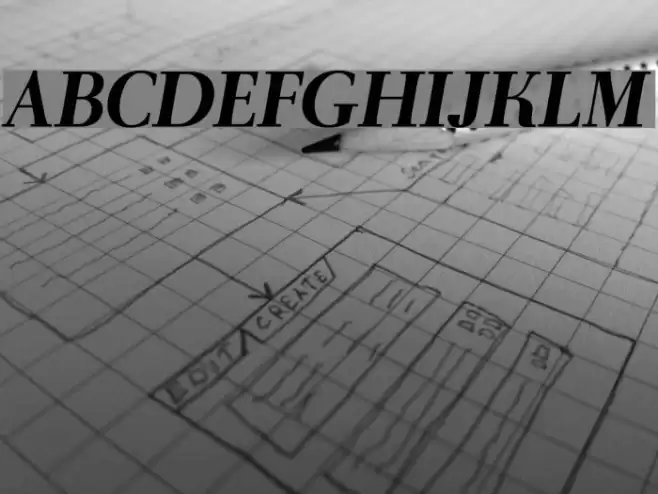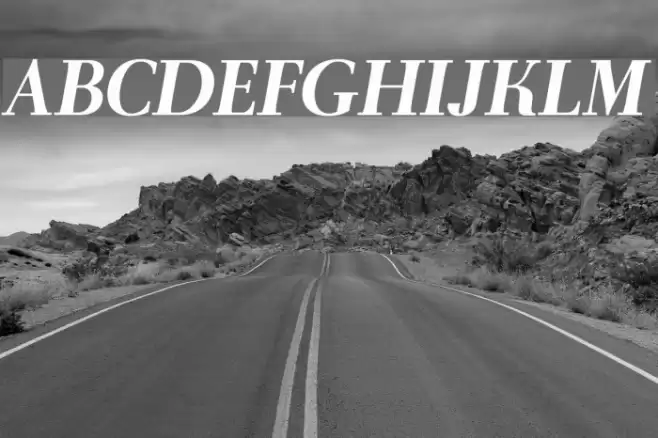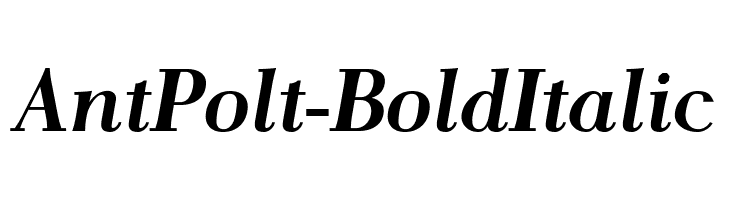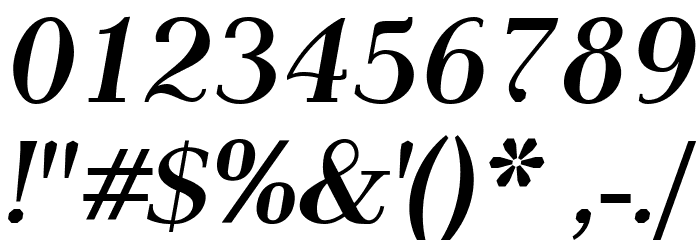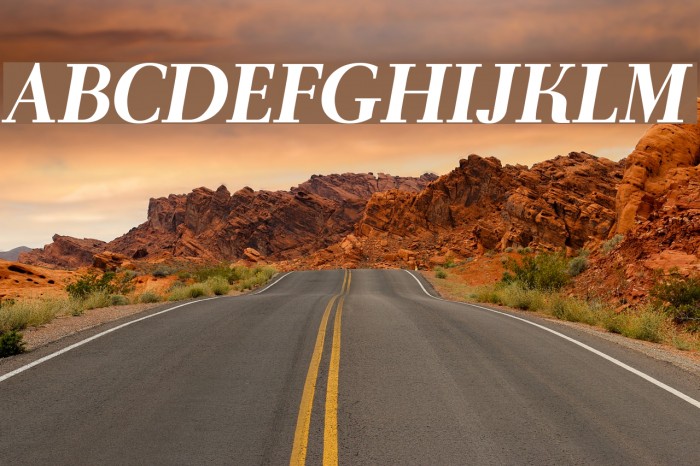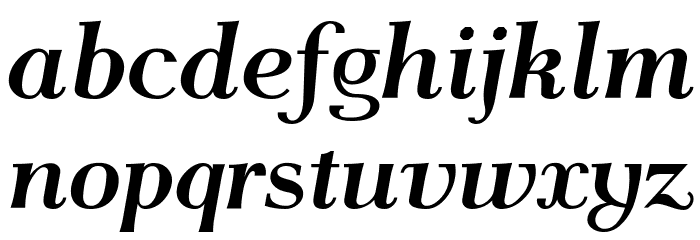
AntPolt-BoldItalic Font
AntPolt-BoldItalic Description
This font exhibits a classic serif style with a bold and italicized appearance. The characters are elegantly slanted, providing a dynamic and sophisticated look. The serifs are pronounced, adding a touch of formality and tradition. The uppercase letters are tall and commanding, while the lowercase letters maintain a consistent flow with smooth curves. The numerals are clear and distinct, ensuring readability. Special characters are well-integrated, maintaining the overall aesthetic. The font's bold weight and italic style make it suitable for impactful and stylish designs.
A bold, italic serif font with a classic and elegant style from Uncategorized fonts.
- Proposed Projects: Ideal for book covers, editorial design, branding, and formal invitations.
- Overall Style: Classic
- Use Case: Headlines, Logos, Editorial design